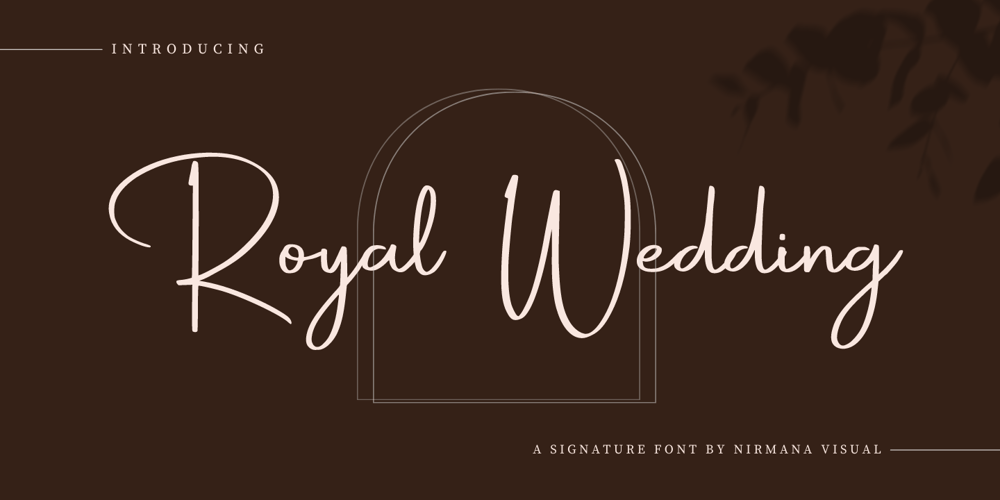
Royal Wedding
Royal Wedding font
Royal Wedding Font Family was designed by Sigit Dwipa and published by Nirmana Visual. Royal Wedding contains 1 styles and family package options. Introducing our new gorgeous calligraphy font, Royal Wedding A beautiful script for those who wish to enhance their designs with elegance and style.Royal Wedding suitable for many projects related to the wedding industry (stationery, logo, etc.)